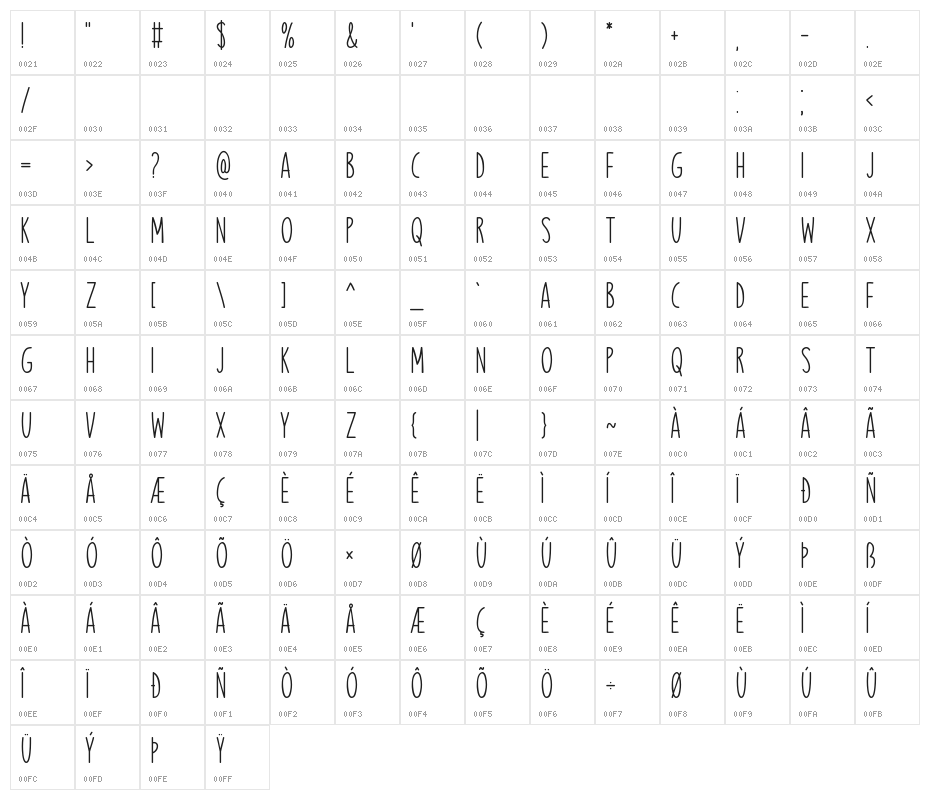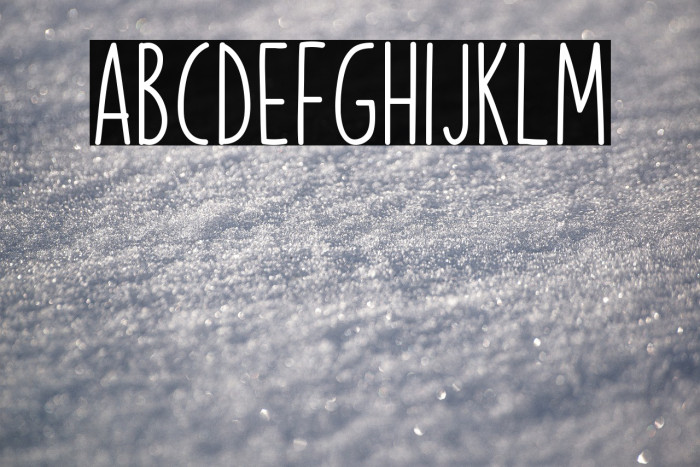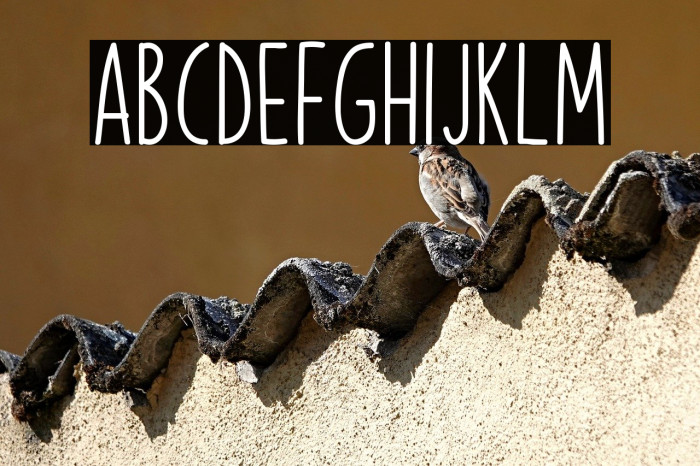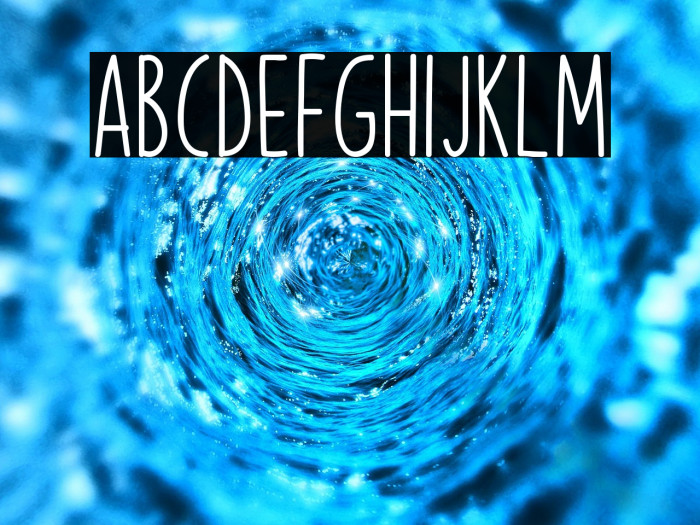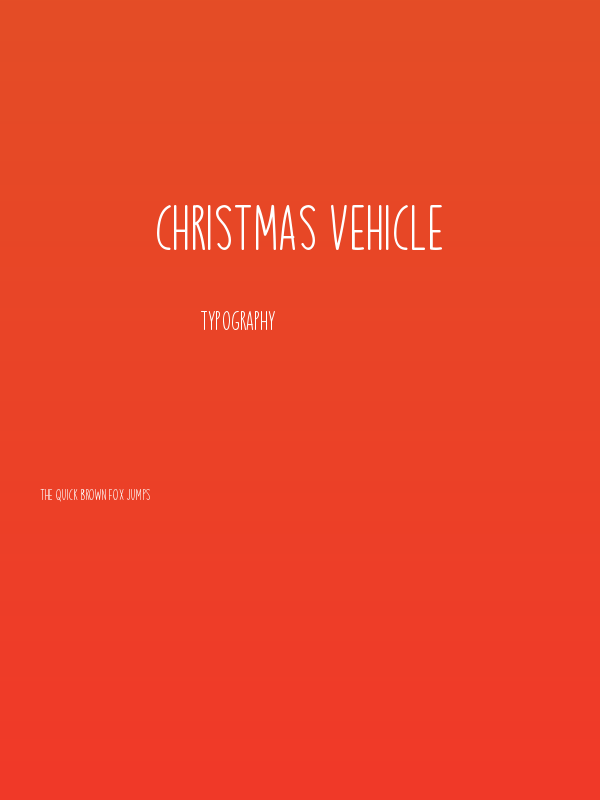
Christmas Vehicle Font
Christmas Vehicle Description
A playful, handwritten font with tall, narrow letters and a casual style.
| Use Case | Headlines, Informal text, Invitations |
| Proposed Projects | Greeting cards, children's books, casual invitations. |